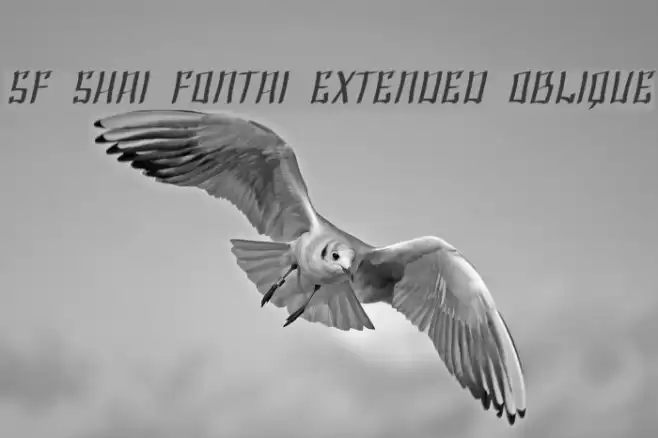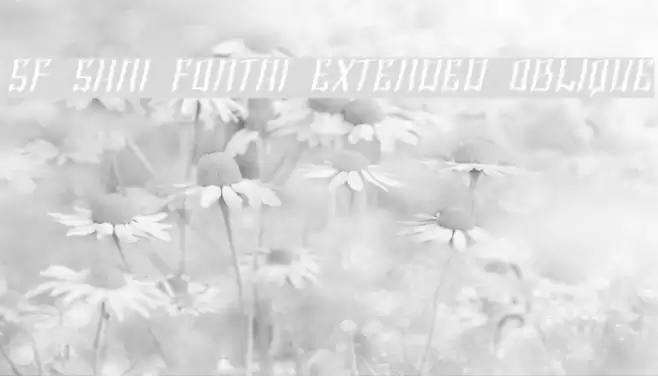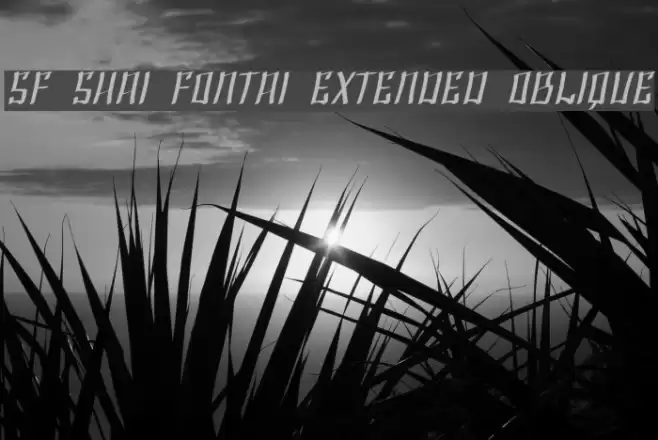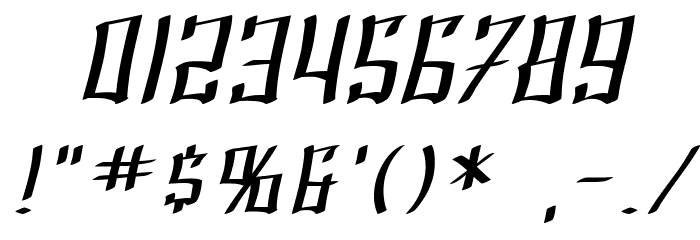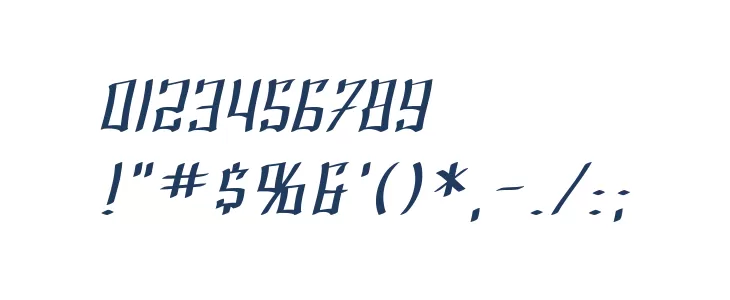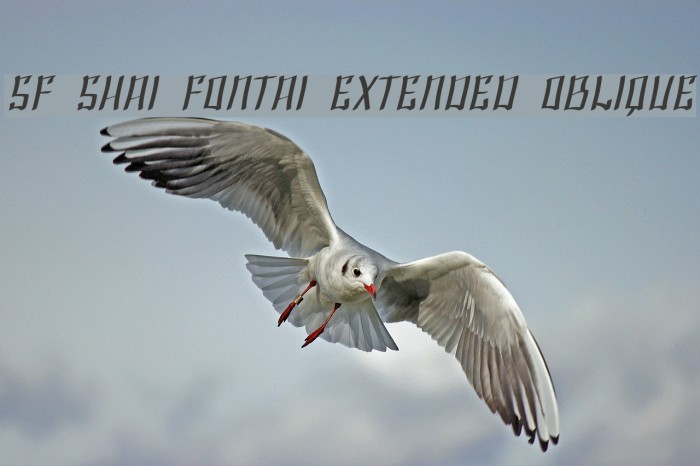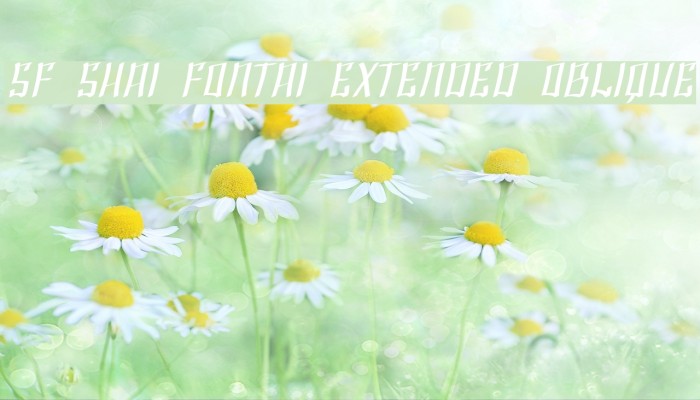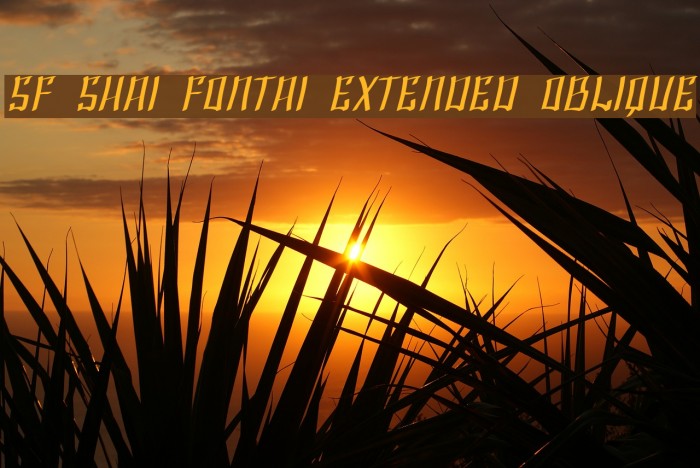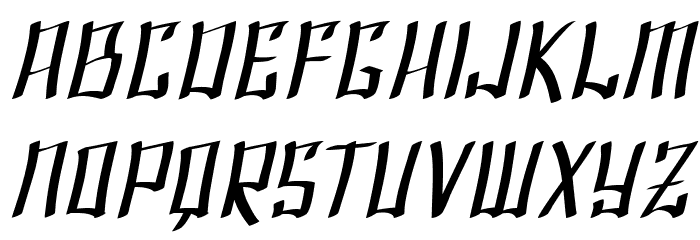
SF Shai Fontai Extended Oblique Font
SF Shai Fontai Extended Oblique Description
This font exhibits a bold and dynamic style with an oblique orientation, giving it a sense of motion and energy. The characters are elongated and slightly condensed, featuring sharp, angular edges that contribute to a modern and edgy appearance. The uppercase and lowercase letters maintain a consistent slant, enhancing the font's cohesive look. The numerals and special characters follow the same stylistic cues, ensuring uniformity across all glyphs. The overall design is striking and attention-grabbing, making it suitable for projects that require a strong visual impact.
A bold, oblique font with sharp, angular edges and a dynamic style from Asian fonts.
- Proposed Projects: Ideal for branding, poster design, and headlines that require a bold statement.
- Character Spacing: Tight